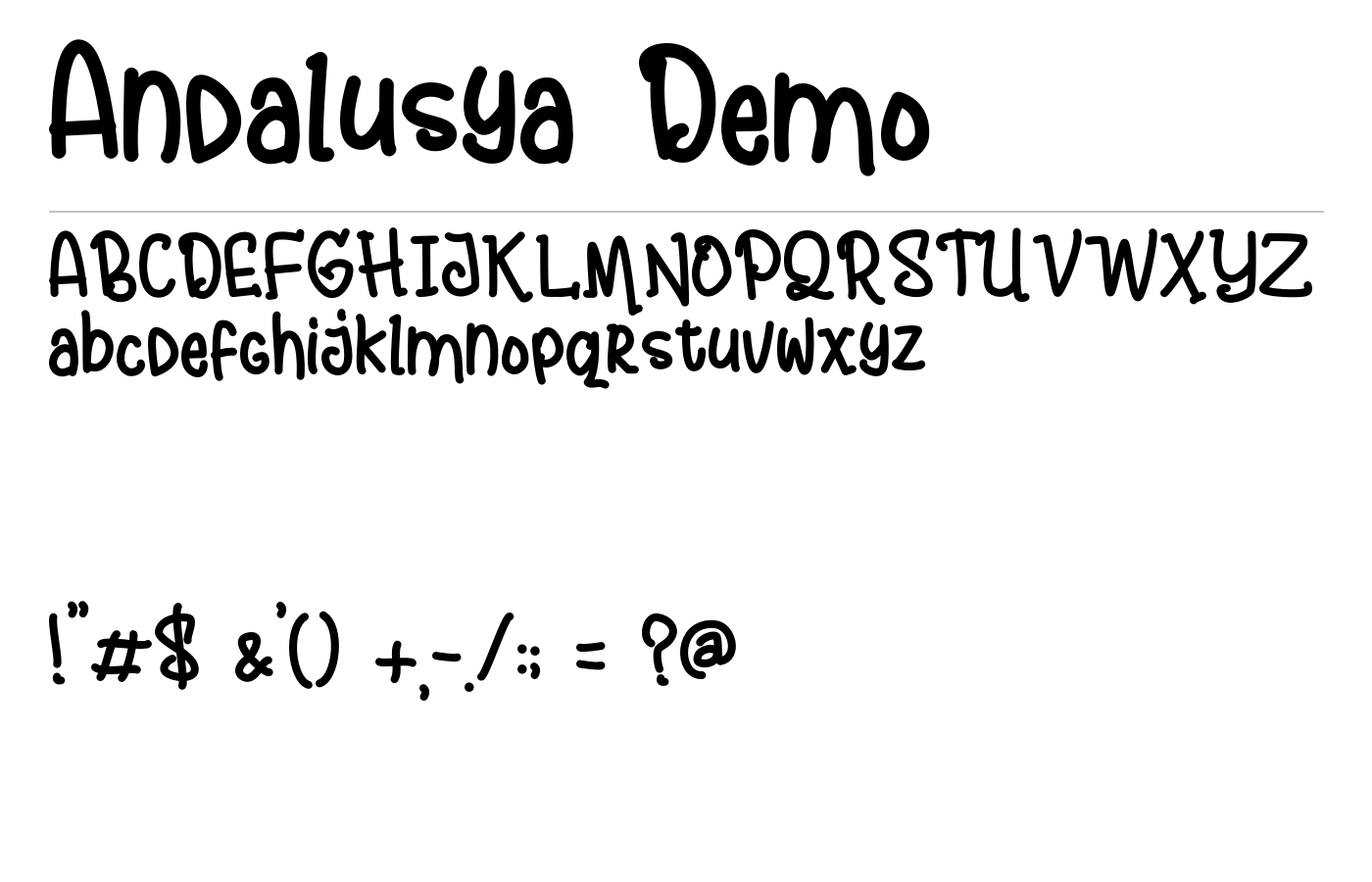
Andalusya Demo is a playful and casual handwritten sans serif font featuring rounded, slightly irregular letterforms that convey a friendly, informal vibe. Its medium weight and moderate x-height make it legible yet lively, perfect for fun, lighthearted branding or creative projects. This font works well for children's books, informal invitations, and quirky logos where a warm, approachable feel is desired.
Andalusya[Demo] Font
About Andalusya[Demo] Font